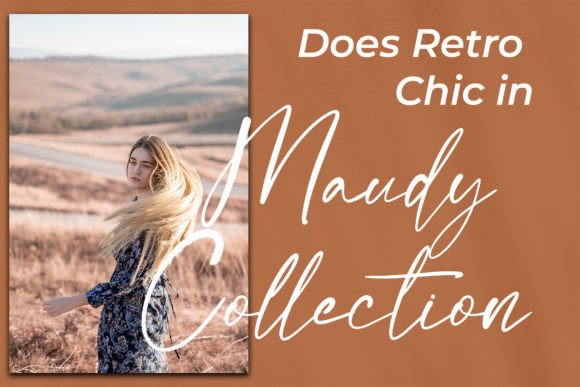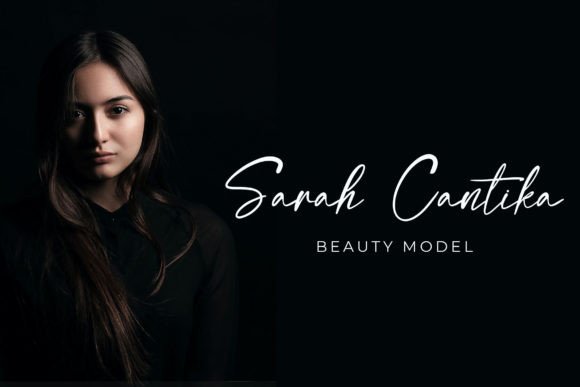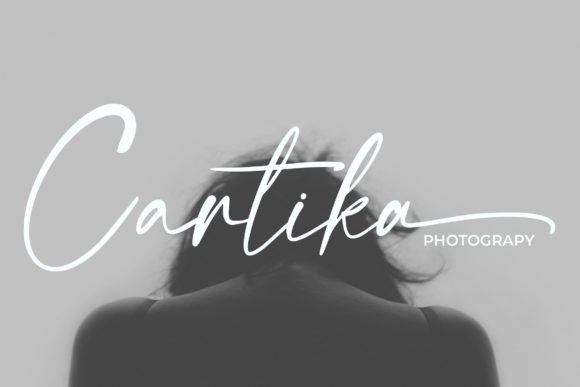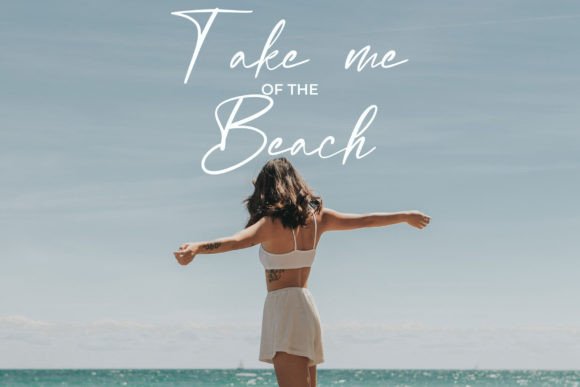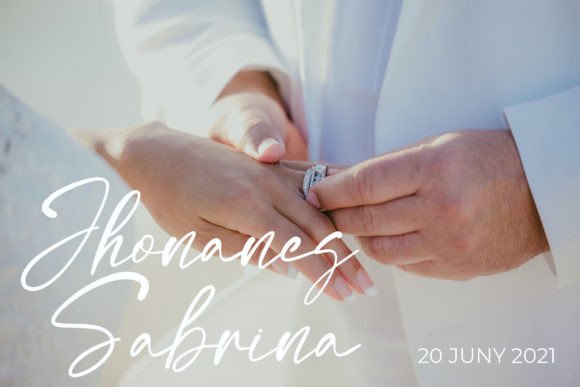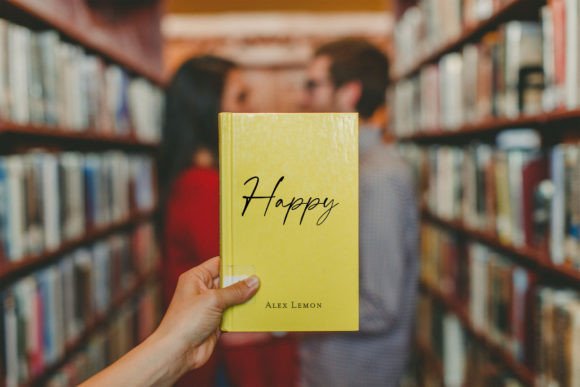
Introduction to Mottinka Font
Mottinka is a sophisticated script font with a signature-inspired design, perfect for adding an elegant and personal touch to your projects.
Its unique character shapes make it stand out, enhancing the visual appeal of any design, from branding to invitations This font is versatile and stylish, offering regular updates for improved functionality.
Key Features of Mottinka Font
Why Choose Mottinka Font?
Mottinka Font offers exceptional quality and versatility, making it a valuable addition to your design toolkit. Whether you’re creating for personal projects or commercial use, Mottinka Font delivers professional results.